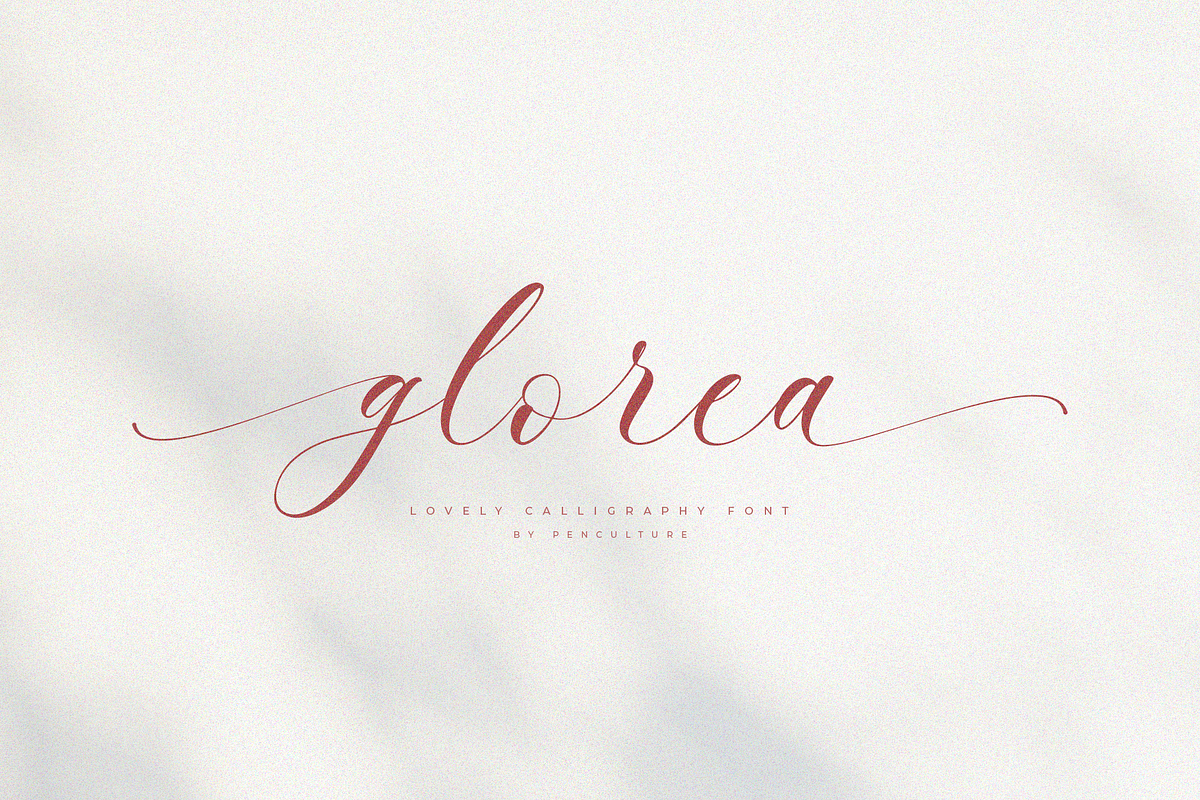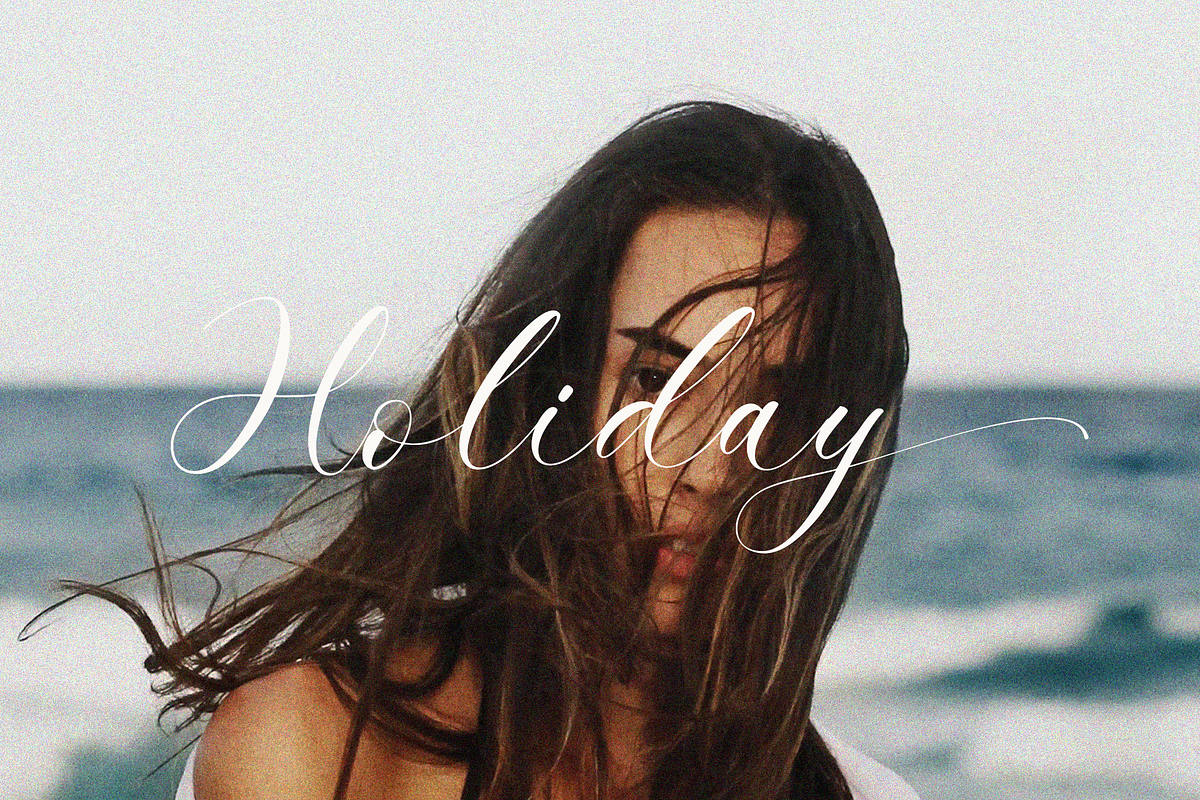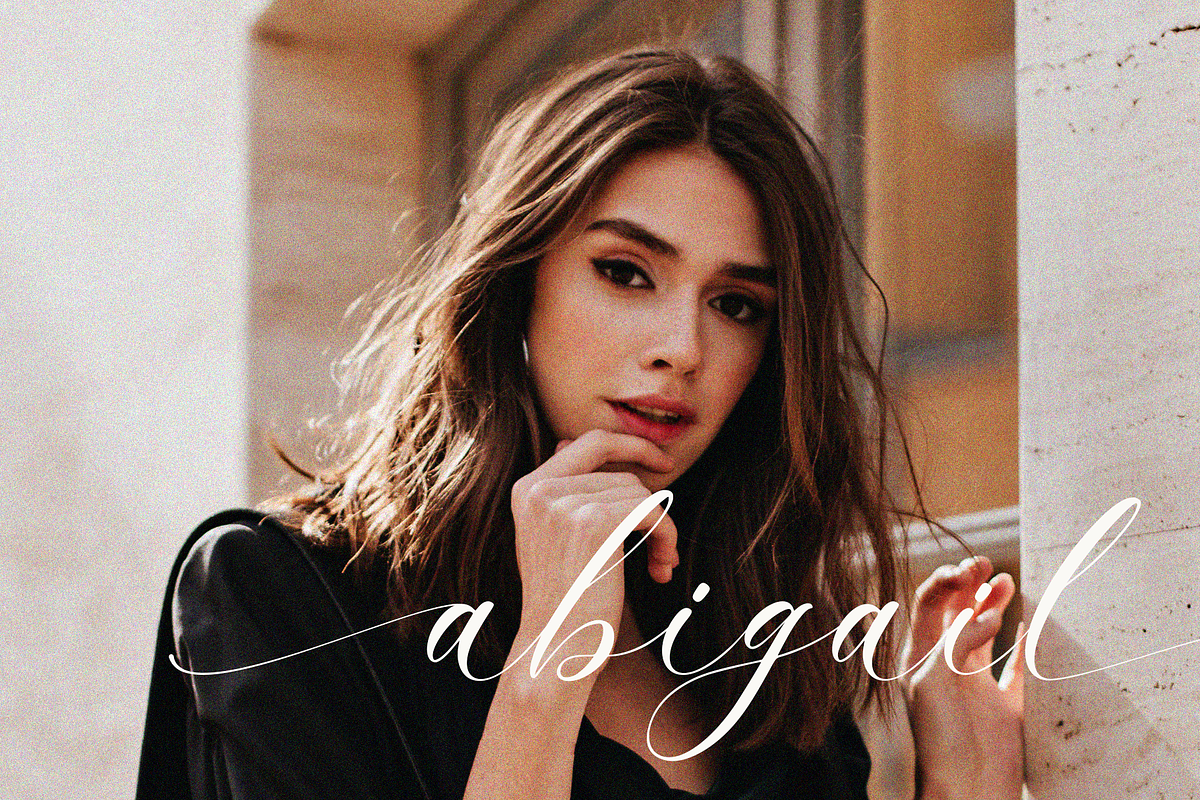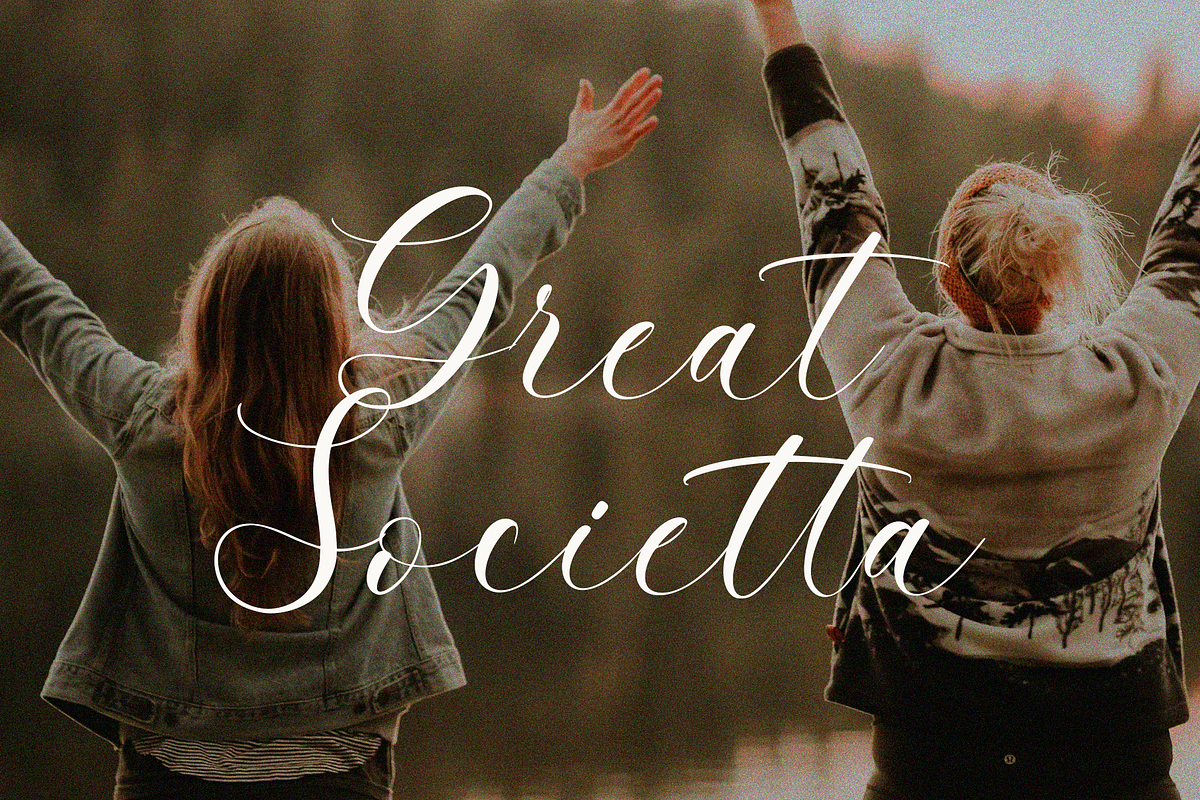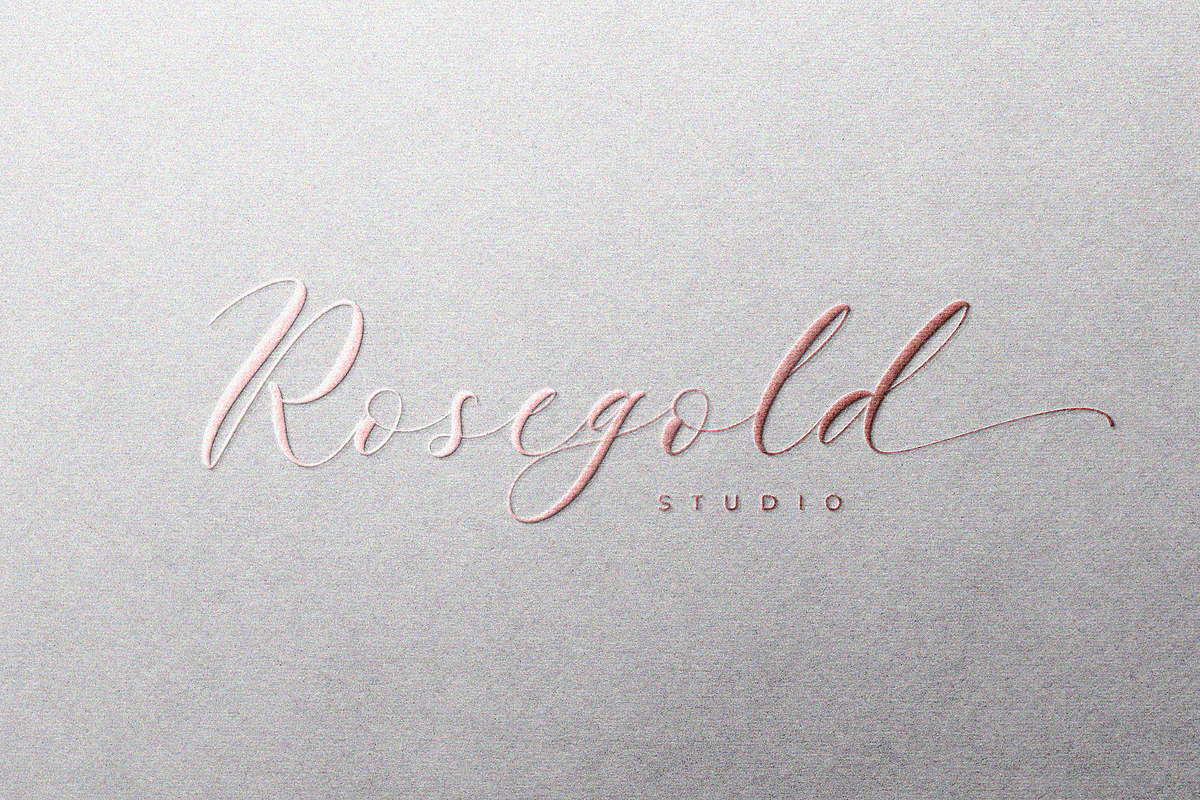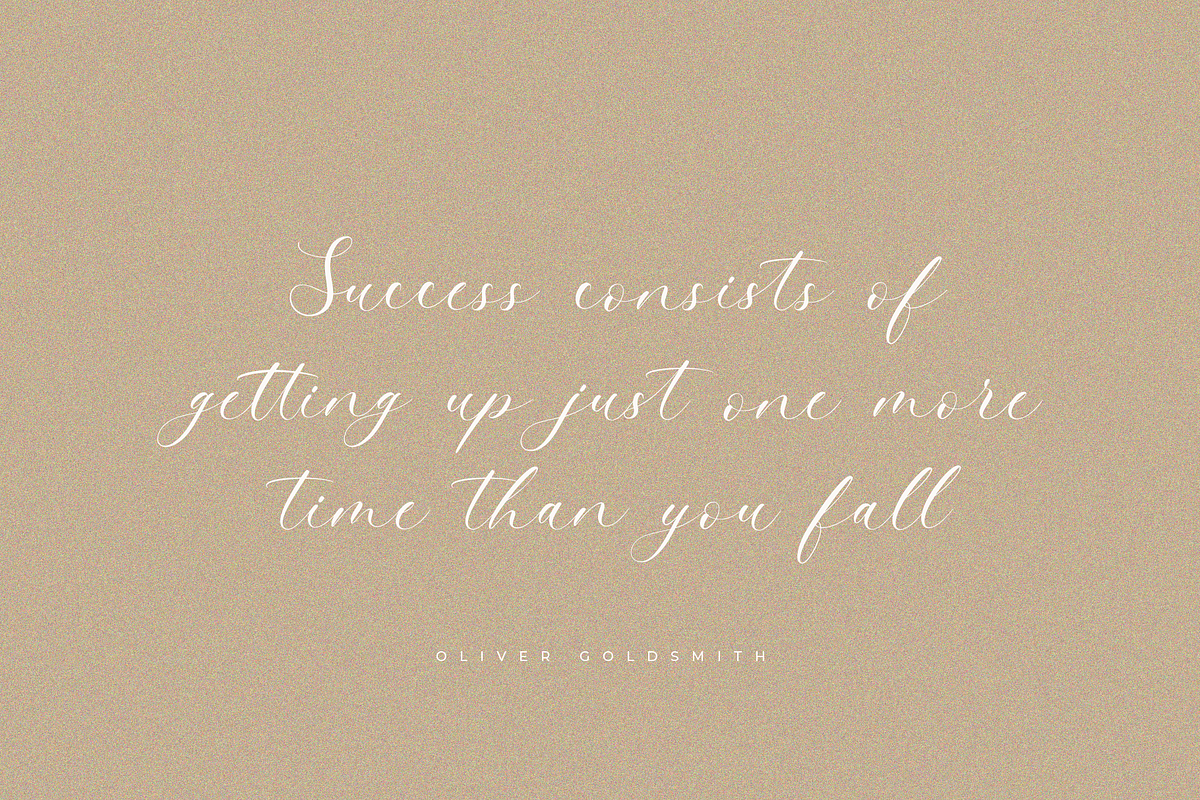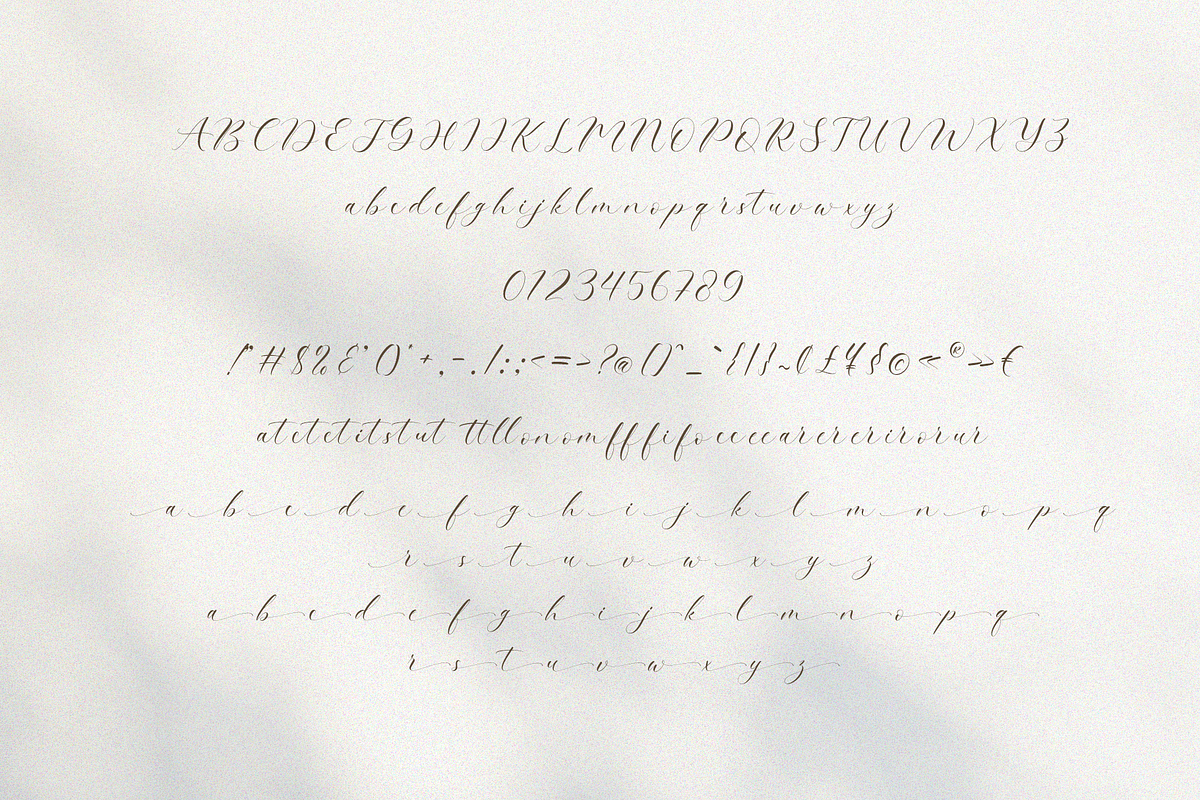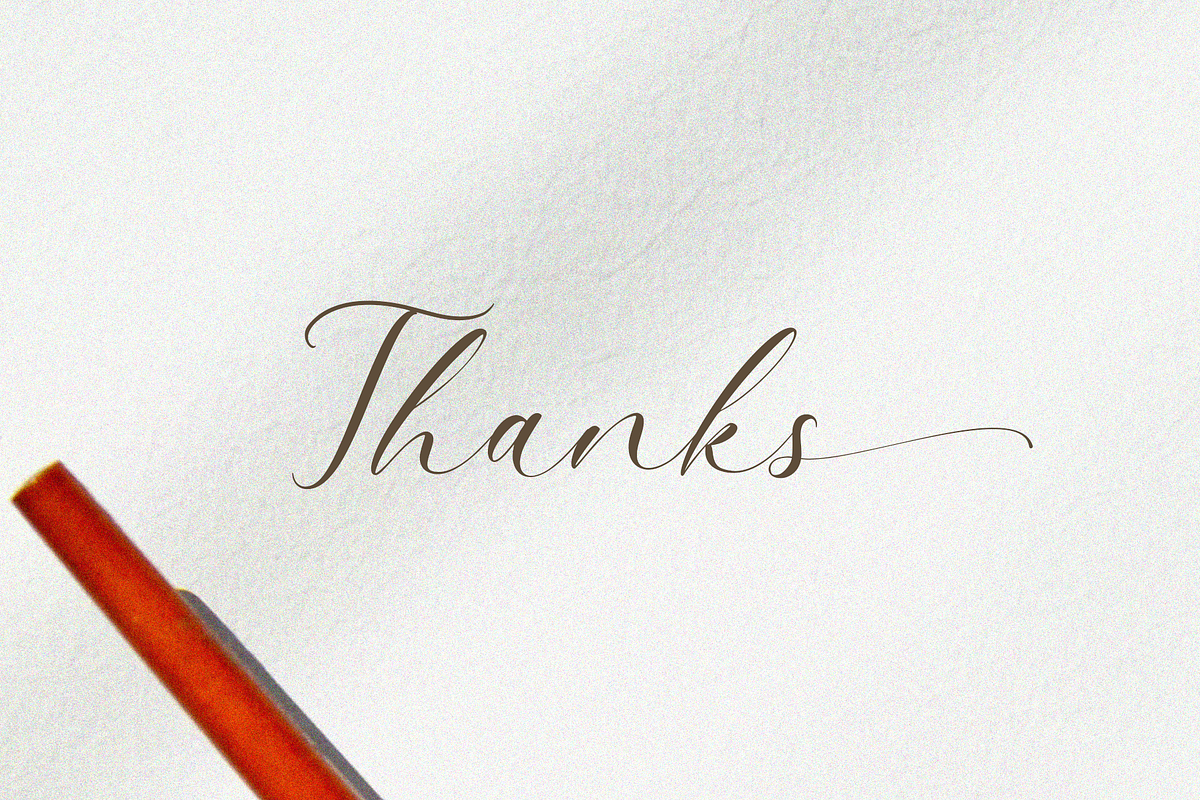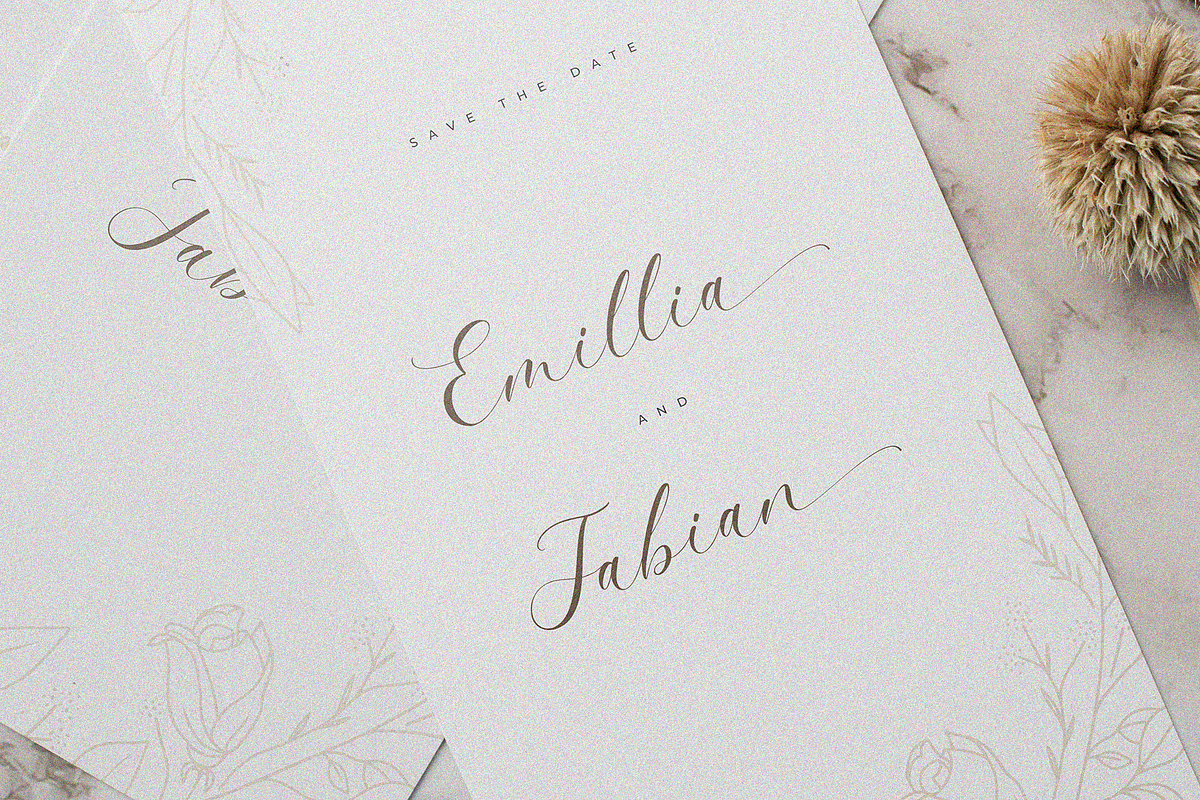
Glorea - A Lovely Calligraphy Font
Introducing "Glorea - Lovely Calligraphy Font"
Glorea is a beautifully lovely modern calligraphy font that exudes elegance and sophistication. Its fluid and graceful strokes make it perfect for wedding invitations, logos, branding, and any project that requires a refined touch. Featuring a full set of characters, including uppercase and lowercase letters, numerals, punctuation, and special characters, Glorea also offers beautiful ligatures and swashes to enhance your designs.
Ideal for both print and digital platforms, Glorea adapts seamlessly while maintaining charm and readability. Elevate your design projects with the stylish and versatile Glorea, and add a touch of modern elegance to your work today!